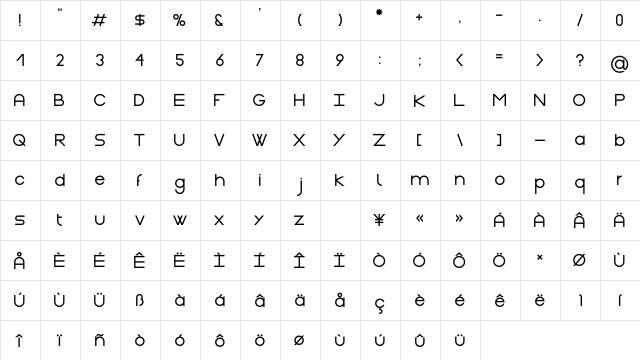
Gasalt Black
Design Context for Gasalt Typeface
Gasalt takes a measured approach to typography — its balanced proportions and neutral character make it a reliable workhorse for both digital and print work.